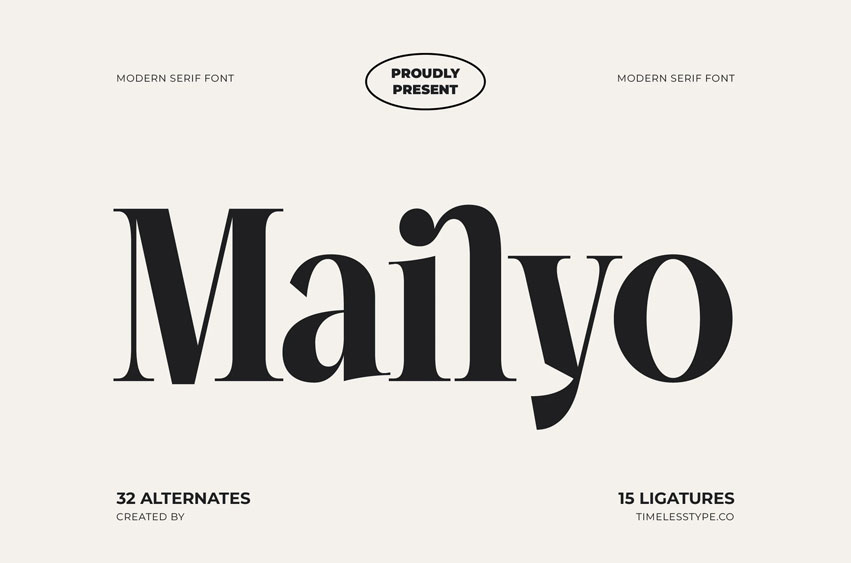
Mailyo Font
Mailyo Font is a modern serif display font featuring elegant contrast, refined curves, and a clean contemporary silhouette. Its polished letterforms balance sophistication and boldness, making it perfect for editorial layouts, luxury branding, packaging, fashion campaigns, logos, and high-end visual identity projects. With a timeless aesthetic and stylish modern edge, Mailyo brings a premium and confident tone to any design.
Featuring 32 alternates and 15 ligatures, Mailyo offers designers wide creative flexibility for crafting expressive headlines, refined monograms, distinctive logotypes, and elegant typographic compositions. Its smooth curves, sleek proportions, and versatile stylistic options make it an ideal choice for projects that demand beauty, clarity, and elevated design.